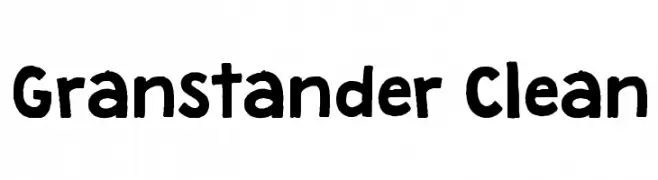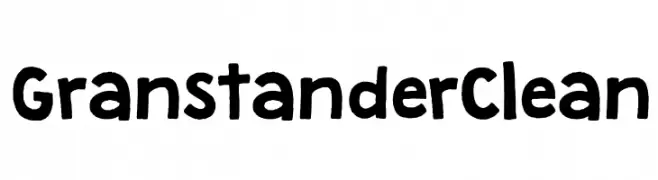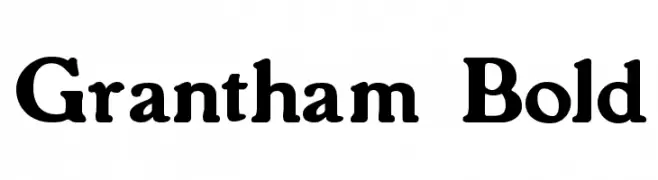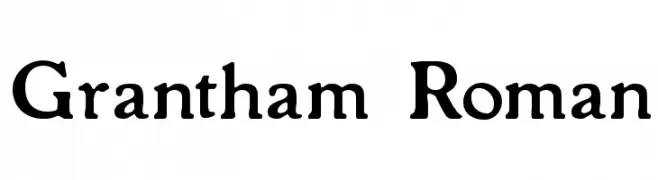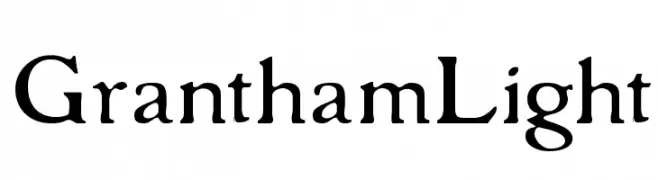
A playful, bold font with a hand-drawn, casual style.
A playful, hand-drawn font with bold, rounded characters.
A bold serif font with strong, angular serifs and a classic, elegant style.
A classic serif font with elegant, bold characters and traditional serifs.
A bold, condensed serif font with a classic yet modern appeal.
A condensed serif font with a classic yet modern style, featuring elegant serifs and cohesive design.
A classic serif font with elegant, flowing lines and medium contrast.
A classic, light serif font with a condensed width and medium contrast.
A bold, outlined serif font with a classic and striking appearance.
A serif font with a unique shadow effect, offering a classic and bold appearance.